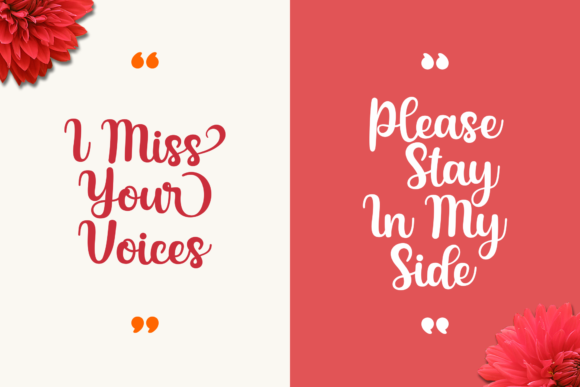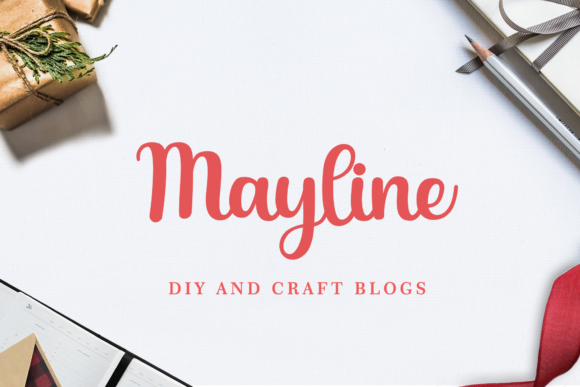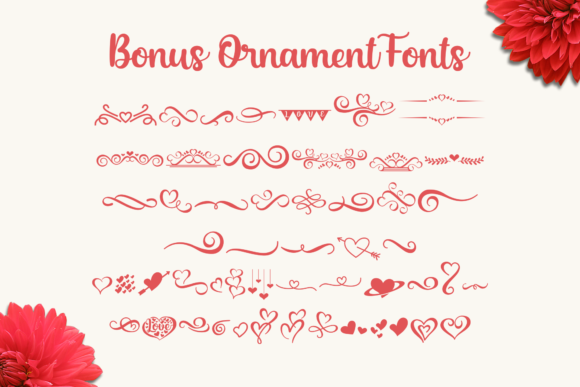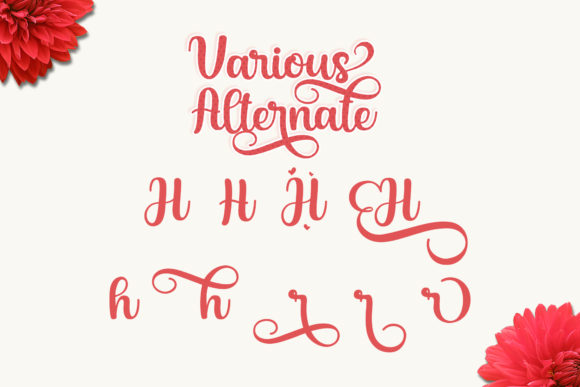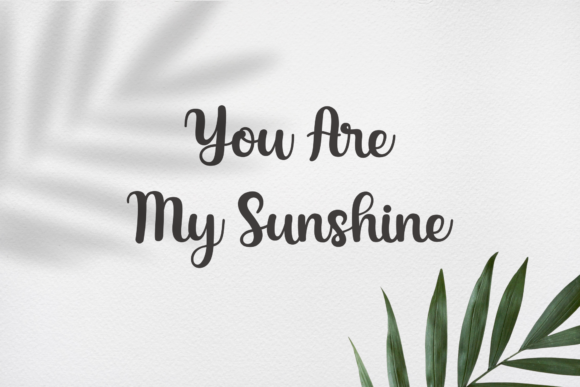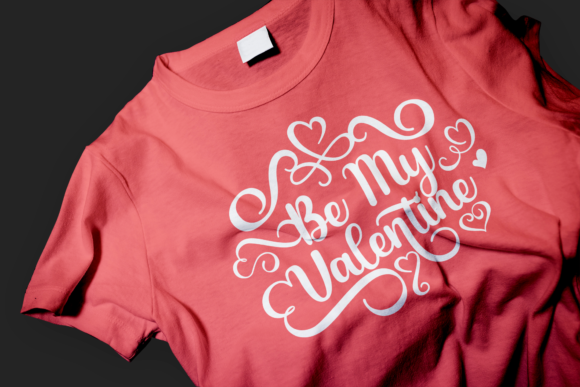
Falling in Love with Austin Hearts Font
I’ll never forget the moment I stumbled upon Austin Hearts Font while working on a wedding invitation project for a client. I had been searching for the perfect script font to capture the romantic essence of the couple’s special day, but everything I found seemed either too bland or too over-the-top. That was until I laid eyes on Austin Hearts – its extravagant swashes and beautiful letters instantly stole my heart! ✨
A Personal Review of Austin Hearts Font
- ✨ Romantic charm: Austin Hearts exudes a sense of elegance and sophistication, making it perfect for projects that require a touch of luxury.
- ✅ Extravagant swashes: The font’s swashes are truly stunning, adding a level of drama and flair to any design.
- 💕 Beautiful letters: Each letter is carefully crafted to convey a sense of love and whimsy, making it ideal for projects that require a personal touch.
While Austin Hearts Font is truly amazing, there are a few things to keep in mind: 🤔
- ⚠️ Legibility at small sizes: Like many script fonts, Austin Hearts can become difficult to read at very small sizes. It’s best used at larger sizes where its beauty can shine.
- ⚠️ Pairing with other fonts: Due to its bold and ornate nature, Austin Hearts can be challenging to pair with other fonts. It’s best used as a display font or paired with a clean, simple font.
The Story Behind Austin Hearts Font
Austin Hearts Font was designed with love and care by a talented type designer who wanted to create a font that would capture the essence of romance and whimsy. The designer’s inspiration came from vintage wedding invitations, antique lace, and the beauty of the human hand. The result is a font that is both elegant and playful, perfect for projects that require a touch of personality.
| Font Name | Austin Hearts Font |
| Author | Holydie Studio |
Q: Is Austin Hearts Font suitable for body text?
A: While Austin Hearts is a beautiful font, it’s best used as a display font or for short blocks of text. Its legibility can be limited at small sizes, making it less suitable for body text.